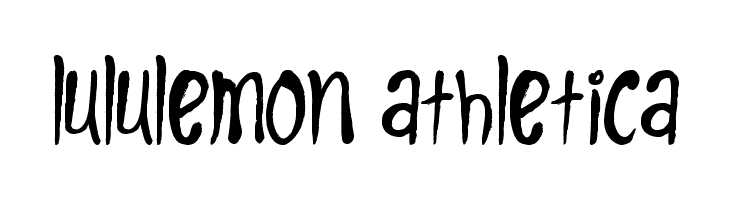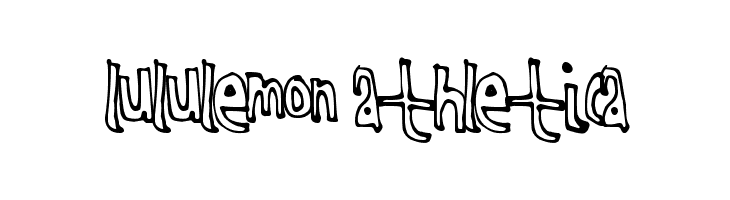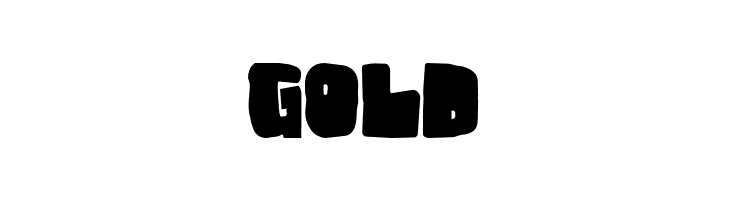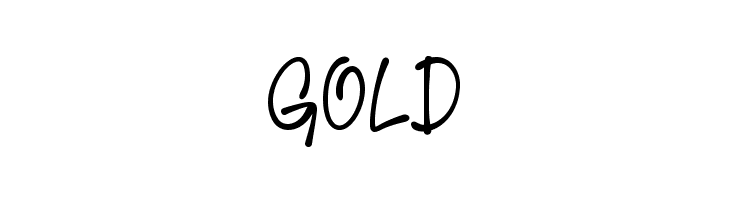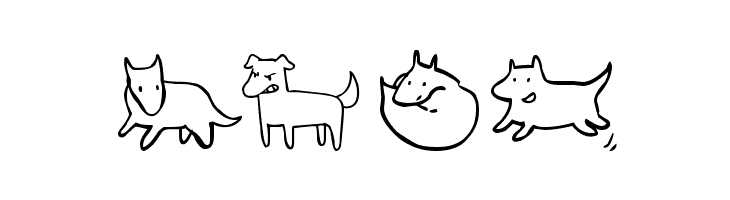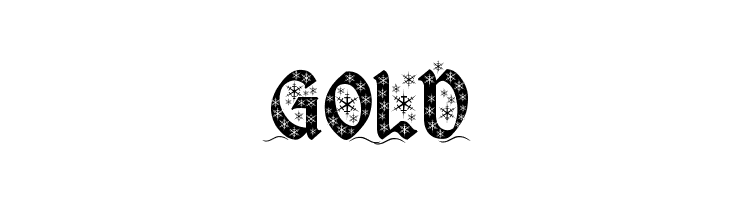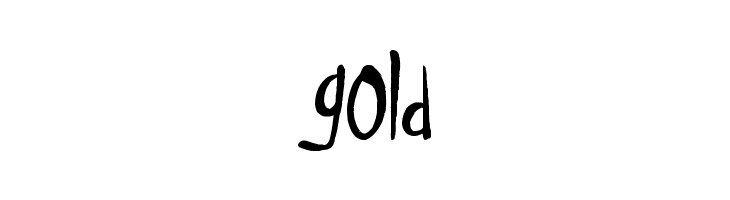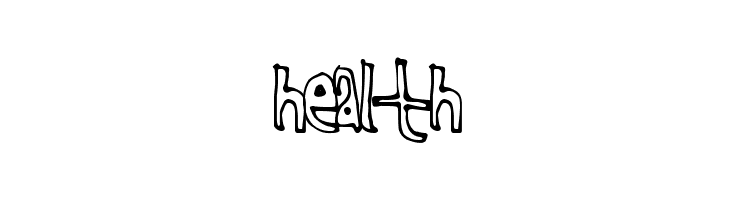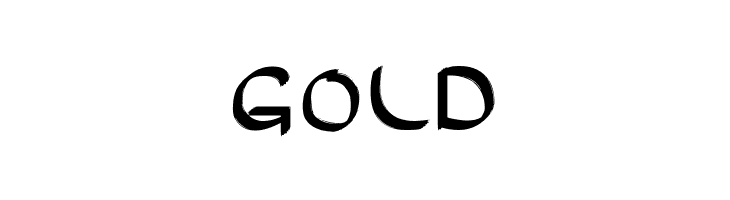
• Kids Play
A playful, hand-drawn font with a whimsical and childlike charm.
• KidsOutline
A playful, hand-drawn outlined font with a whimsical and energetic style.
• Kidstone
• Kidz Block
Playful, bold hand-drawn display font.
• Kidzz
A bold, playful font with chunky, rounded characters perfect for fun and creative projects.
• Kill Bad Cafe
• kiltro
A whimsical font with hand-drawn dog illustrations for each character.
• Kimmun
A bold, playful handwritten font with rounded, consistent strokes.
• Kinamay
• Kingthings Christmas